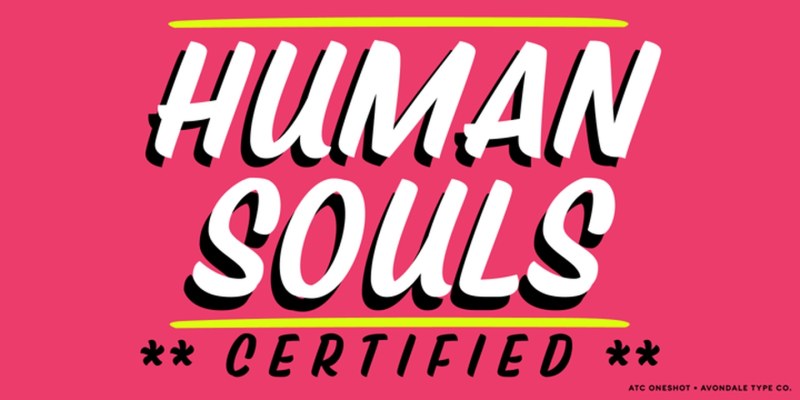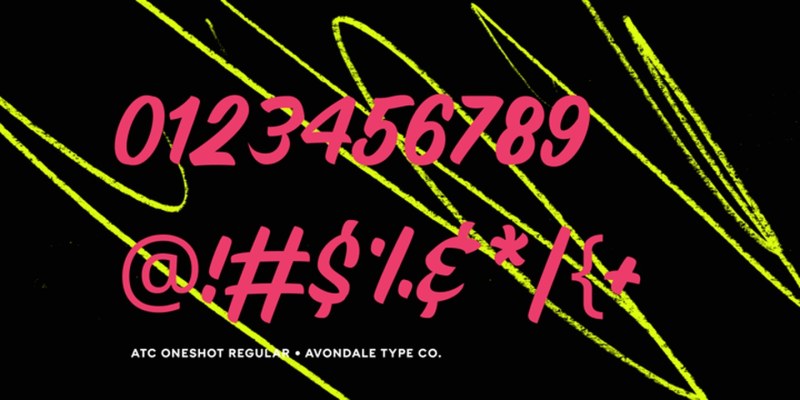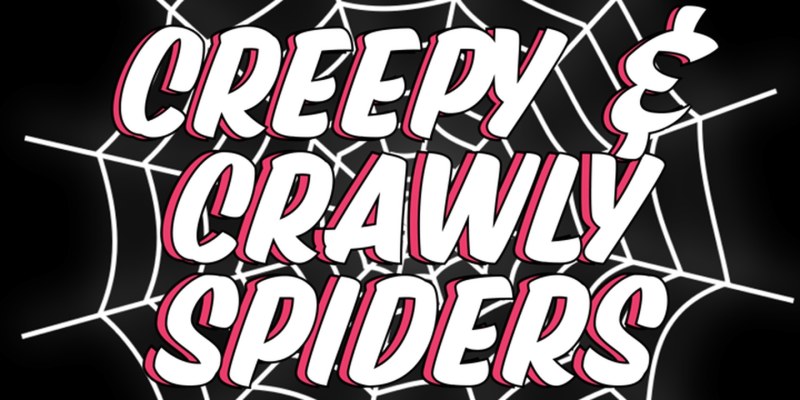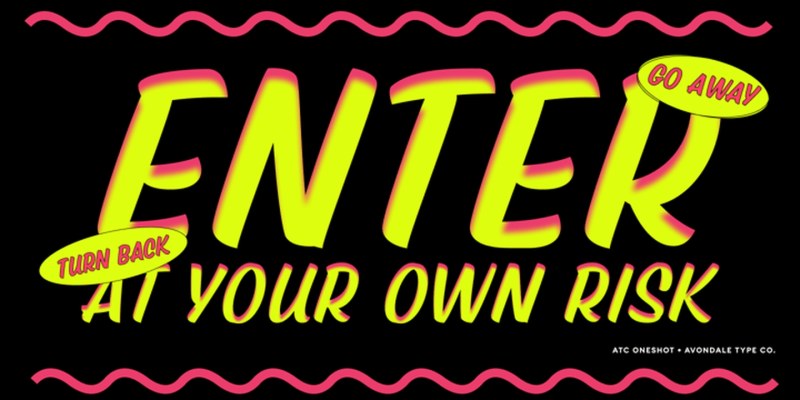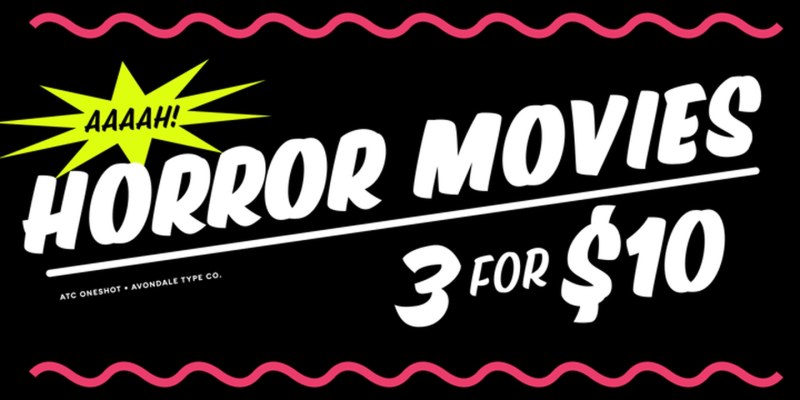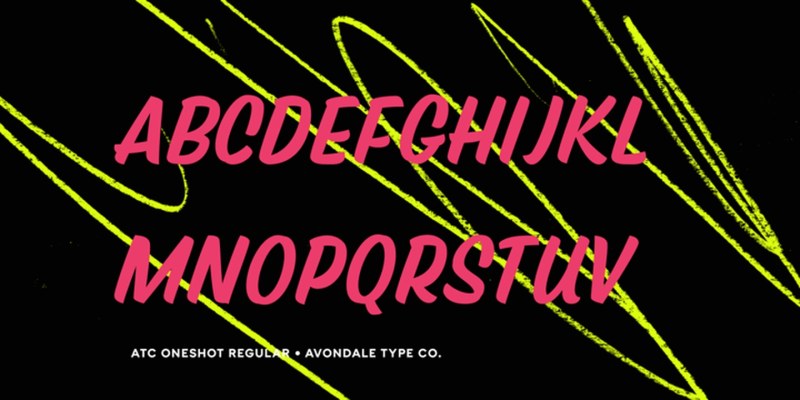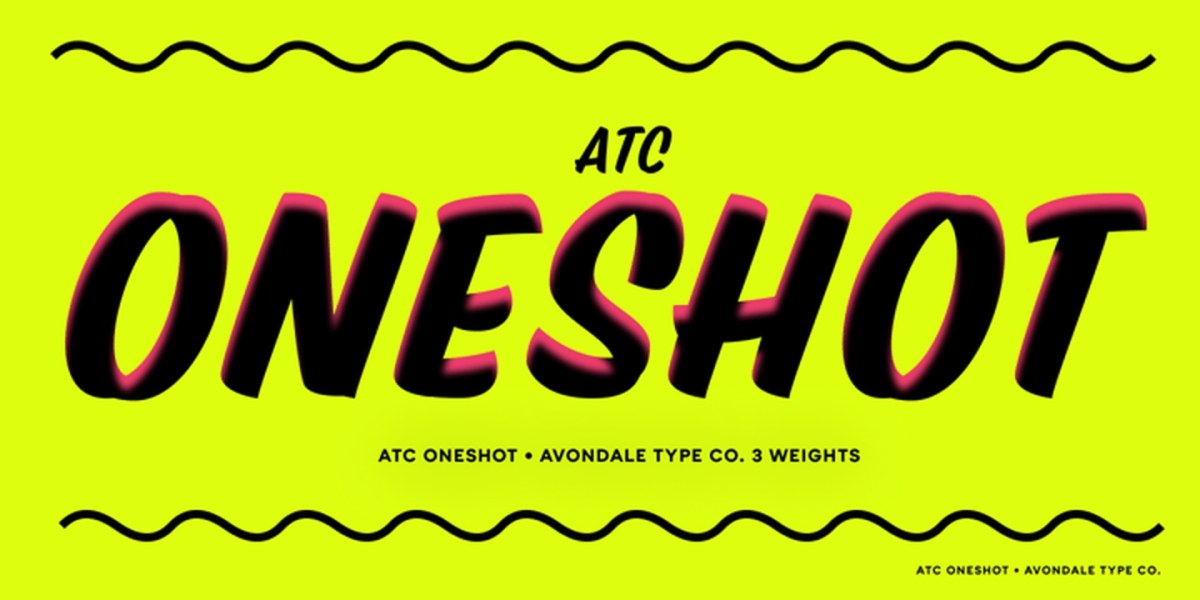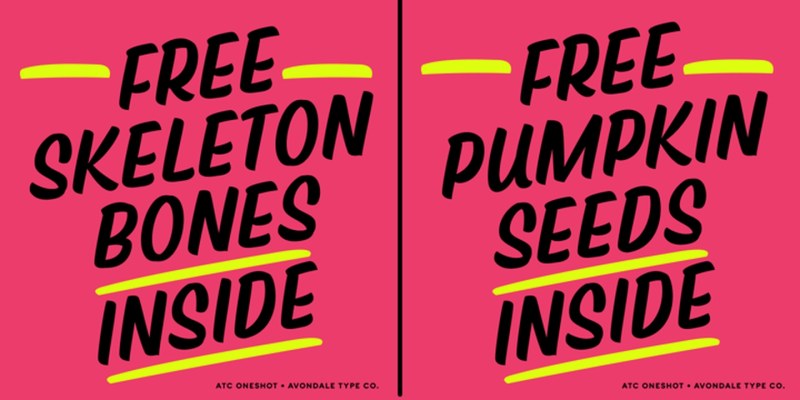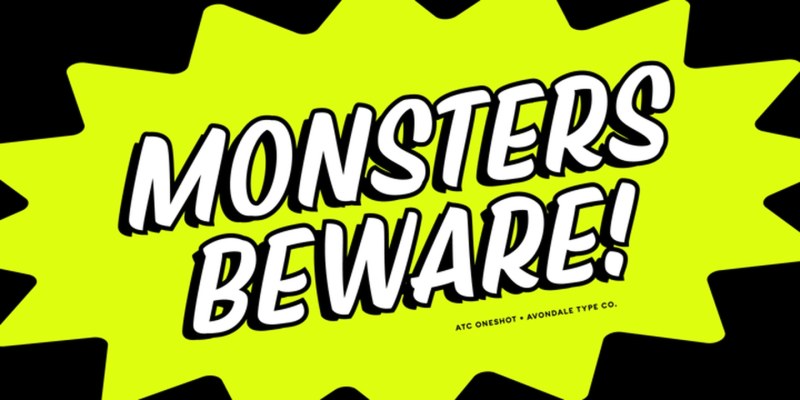
ATC Oneshot Font Family
ATC Oneshot, is a handwritten script font based on neighborhood bodega signage. Contains 160+ glyphs, full alphabet, ligatures, numberals, accents and punctuation. File type included in download is .otf.
ATC Oneshot Font Family is a Script And Handwritten font that brings a professional and versatile look to your projects. ATC Oneshot, is a handwritten script font based on neighborhood bodega signage.